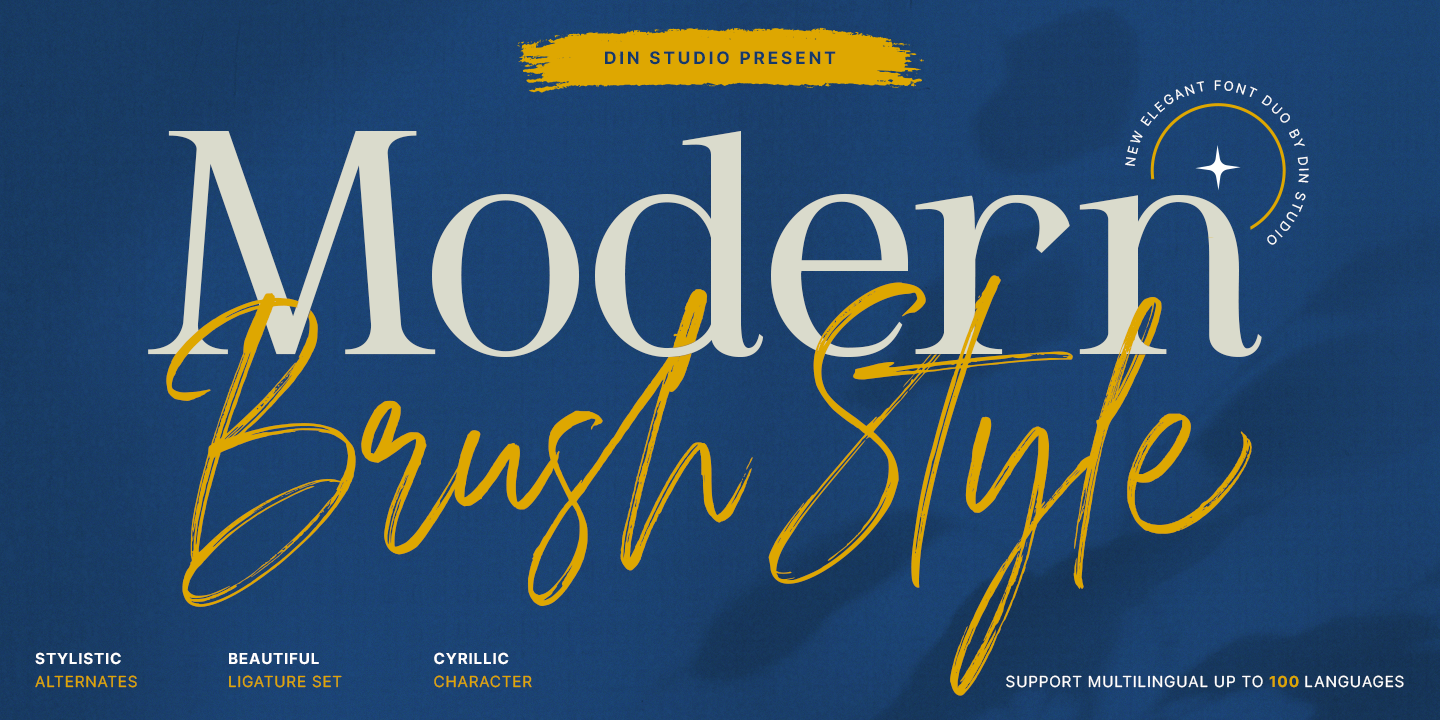
The Modern Brush Style Font is perfect for creative agency branding, artistic logo designs, modern calligraphy projects, trendy social media graphics, contemporary poster layouts, fashion brand communications, urban art installations, expressive greeting cards, and dynamic advertising campaigns that require bold artistic expression and contemporary handwritten appeal.
What makes the Modern Brush Style Font so exciting is its masterful fusion of traditional brush lettering techniques with cutting-edge contemporary design sensibilities that create an irresistible combination of artistic authenticity and modern sophistication. This remarkable typeface captures the fluid energy and expressive power of hand-painted brush strokes while incorporating refined design elements that ensure professional versatility and contemporary relevance. The font's dynamic character variations and organic flow create an immediate sense of creative energy and artistic credibility, making it the perfect choice for brands and projects that celebrate creative expression, artistic innovation, and the authentic human touch in modern design.
The Modern Brush Style Font family typically includes regular and bold weights, along with extensive stylistic alternates, swashes, and decorative elements that provide designers with comprehensive tools for creating personalized artistic typography and expressive contemporary branding systems.
Creative studios and artistic brands consistently choose Modern Brush Style Font Free Download for its exceptional ability to convey contemporary artistic vision and creative authenticity. This innovative typeface represents the perfect evolution of traditional brush lettering for modern applications, offering professionals a powerful tool for creating memorable brand experiences that resonate with audiences seeking genuine artistic expression and contemporary creative energy. Whether you're developing branding for art galleries, creating promotional materials for creative workshops, designing contemporary fashion communications, or crafting expressive social media campaigns, this font delivers the artistic impact and modern appeal that creative communications require.
The dynamically crafted letterforms of the Modern Brush Style Font showcase natural brush stroke variations and contemporary refinements that create authentic artistic character while maintaining excellent readability across various modern applications. The font's expressive energy and sophisticated execution ensure maximum visual impact and emotional connection with design-conscious audiences.
Art directors and contemporary brand designers appreciate the font's advanced OpenType features, which include contextual alternates and stylistic sets that automatically create natural variation and prevent repetitive patterns, maintaining the authentic flow of hand-painted brush lettering throughout text compositions.
For organizations seeking to establish a distinctive creative presence and communicate artistic leadership through their visual identity, the Modern Brush Style Font provides an exceptional typography solution. Its contemporary artistic foundation and proven creative impact make it particularly suitable for design agencies, art studios, fashion brands, and creative lifestyle companies that value innovation and authentic artistic expression.
The font's optimization for both traditional print applications and modern digital platforms ensures consistent artistic impact across all creative communication channels, while its contemporary aesthetic provides enduring value for artistic brand systems requiring typography that authentically represents the evolving intersection of traditional craftsmanship and modern creative expression in today's dynamic design landscape.